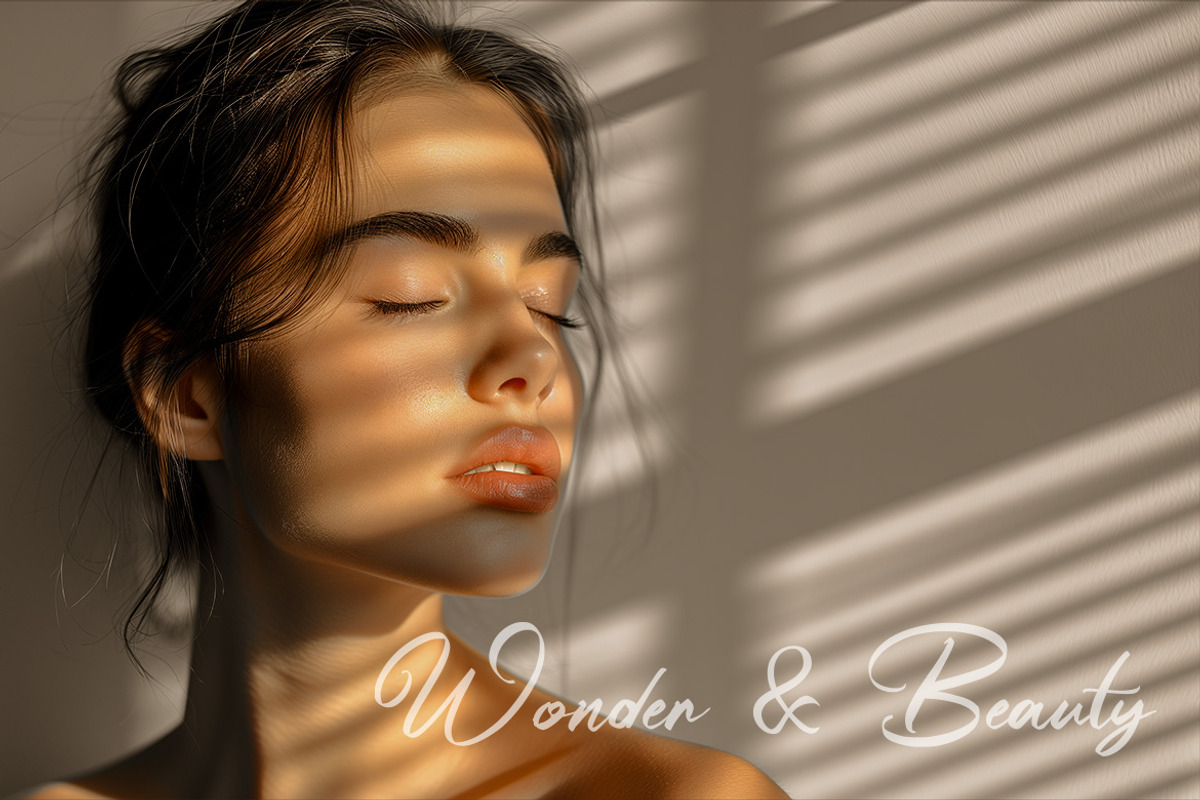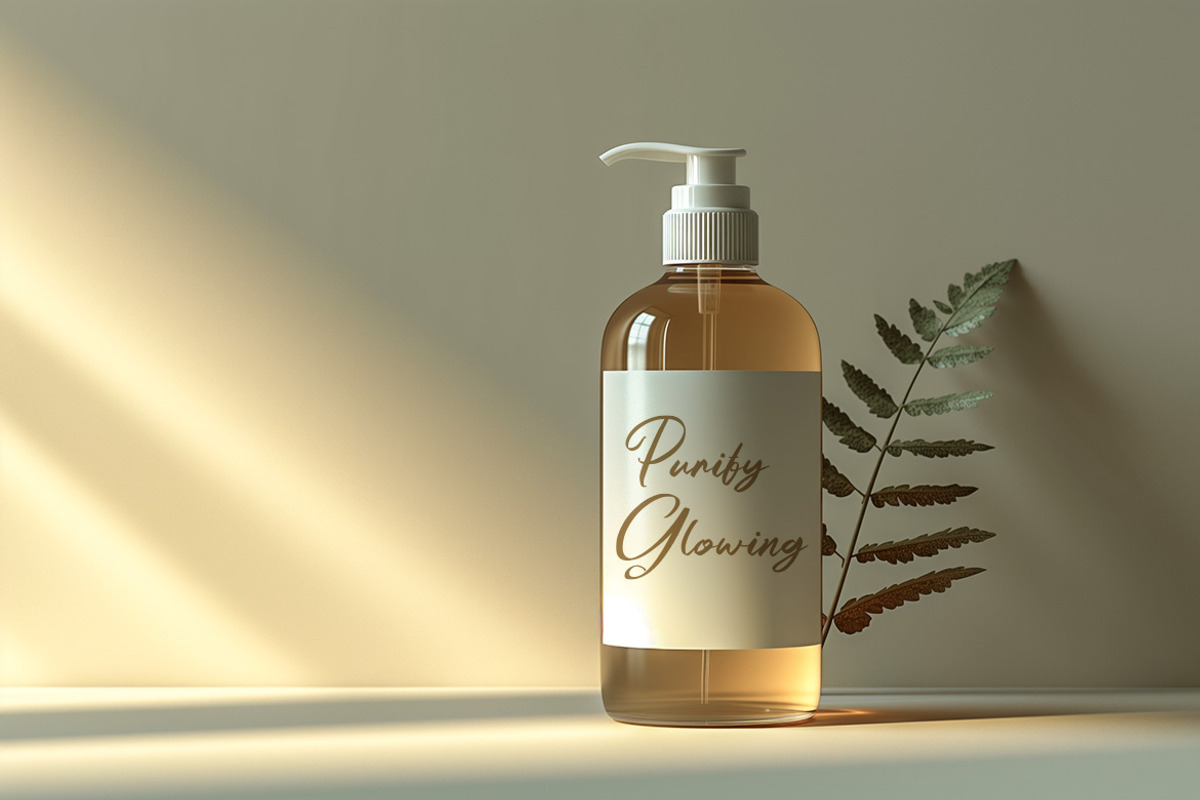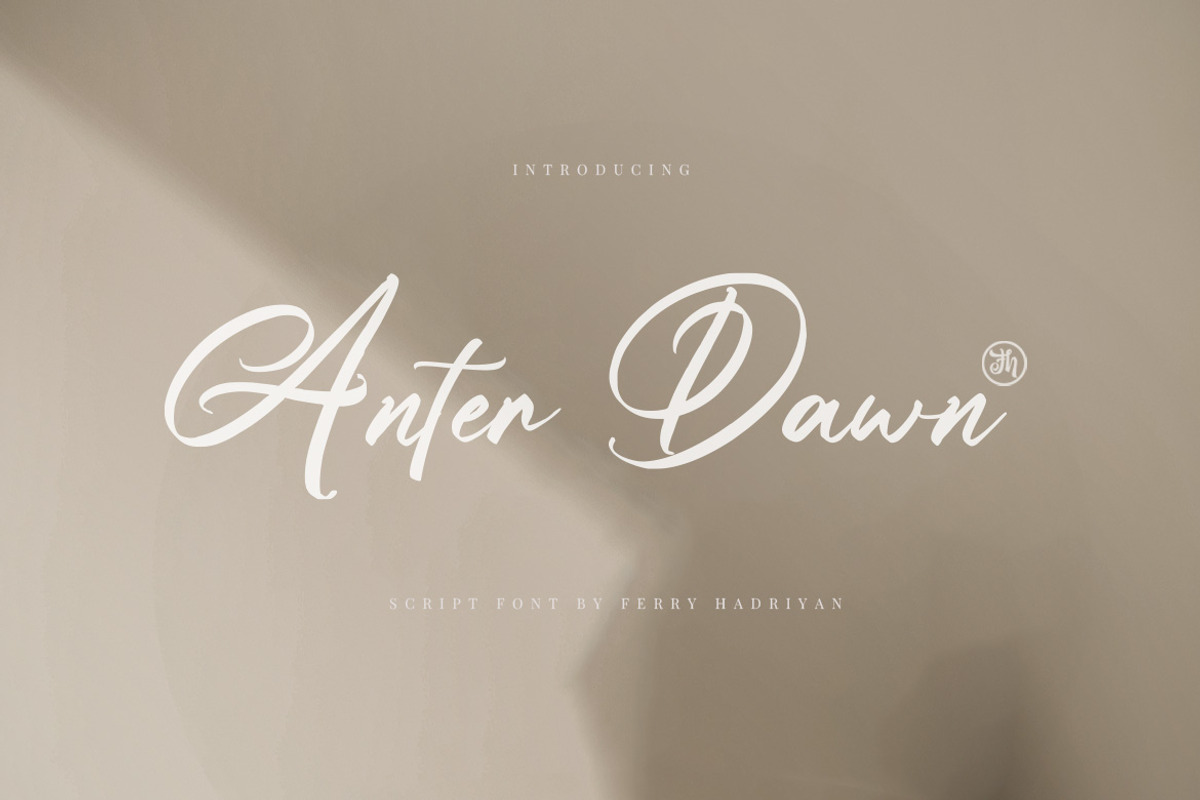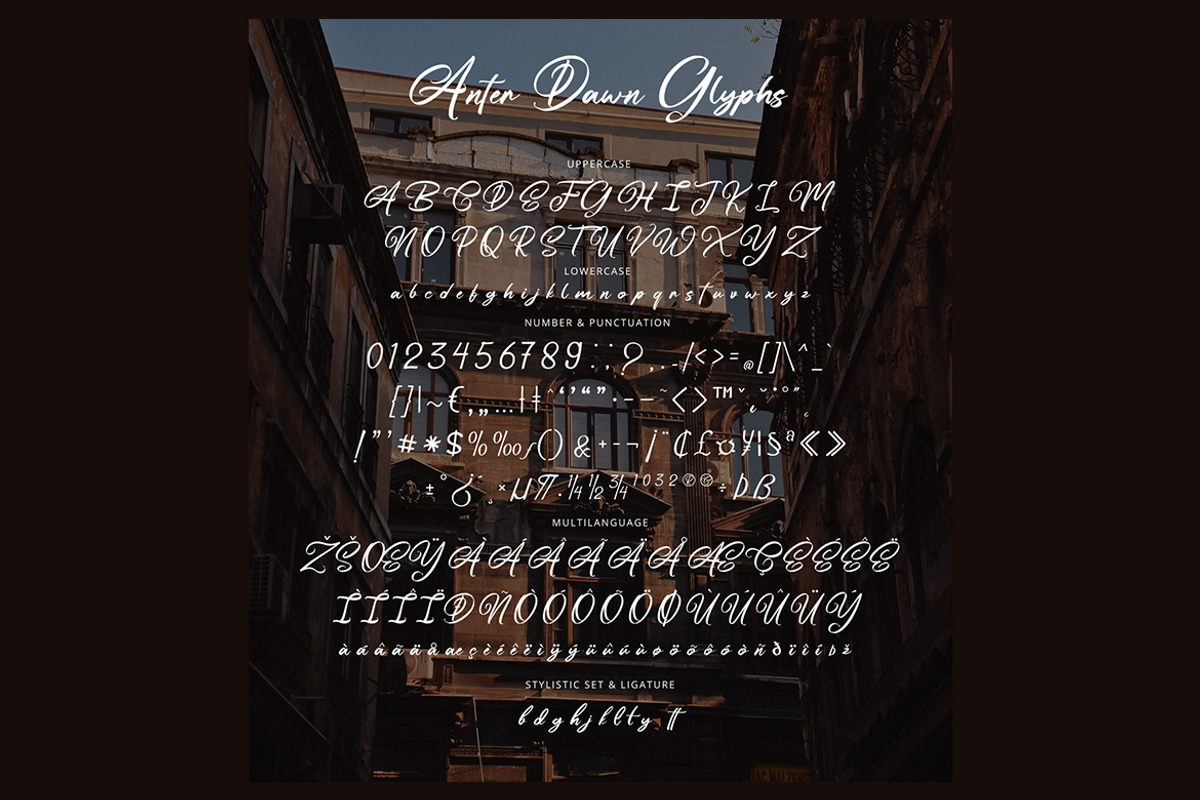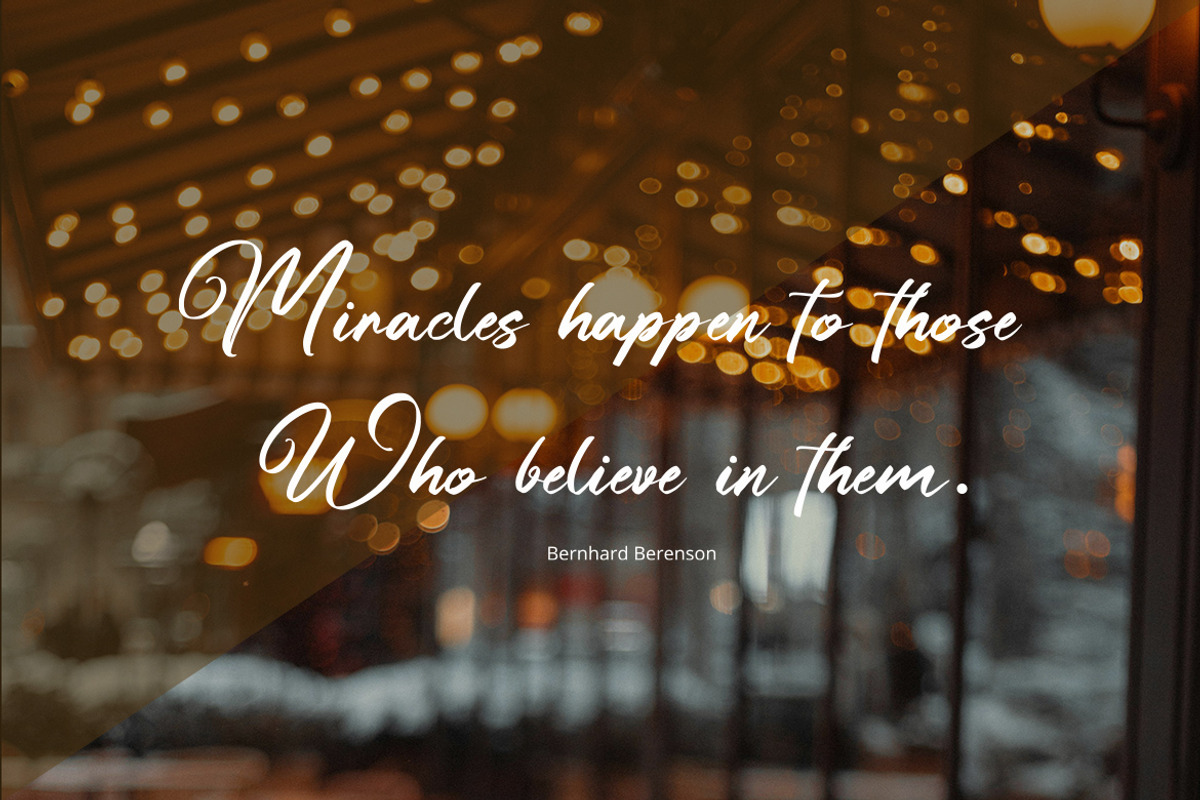
Anter Dawn - Script Font
Anter Dawn is a script font with a modern calligraphy style, calligraphy with touch of elegant handwritten. Suitable for design, element design, events, logo, awesome work.
All Standard Character, Symbol, Multilanguage, Ligature, Stylistic Set, and Swashes.